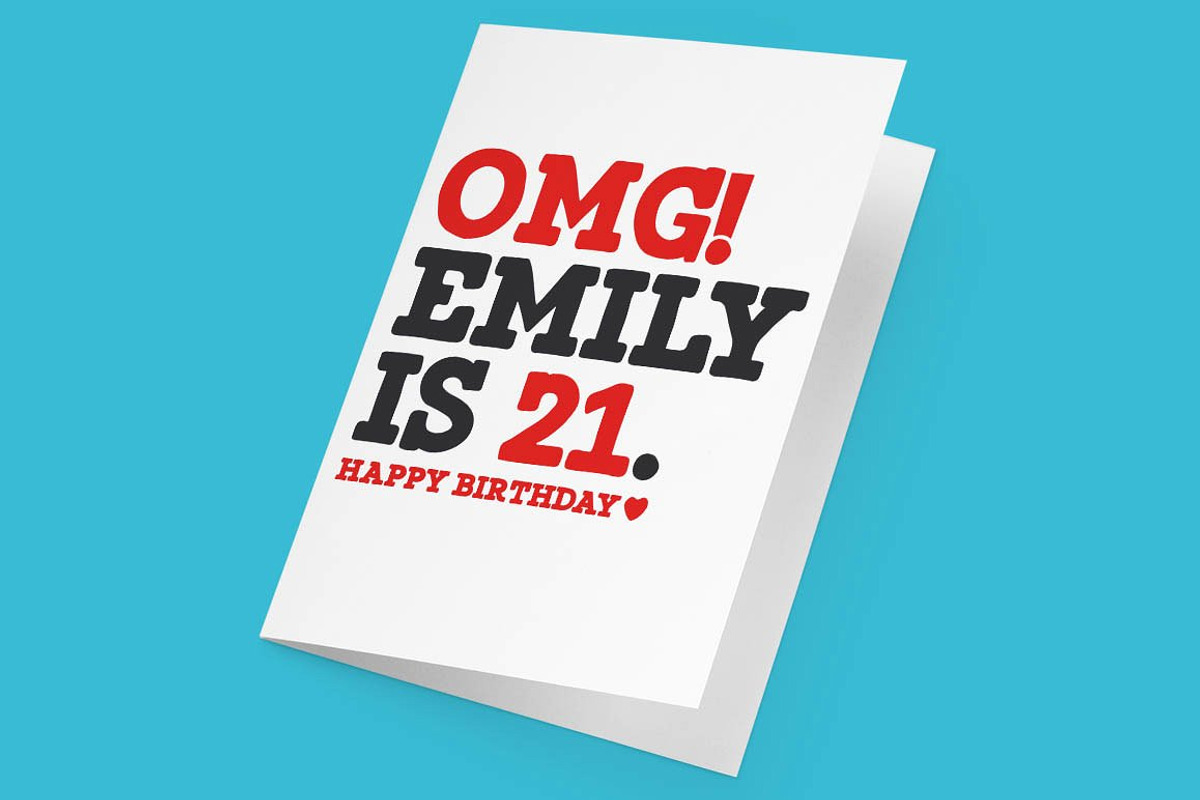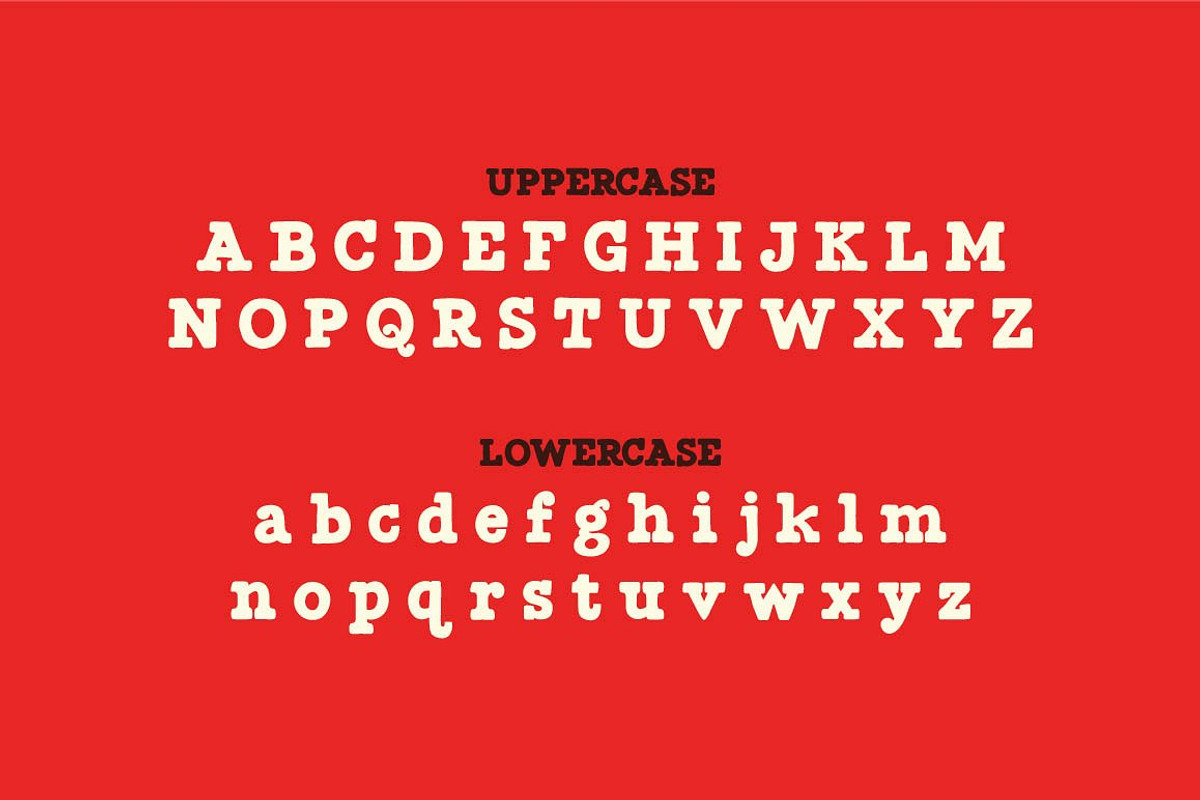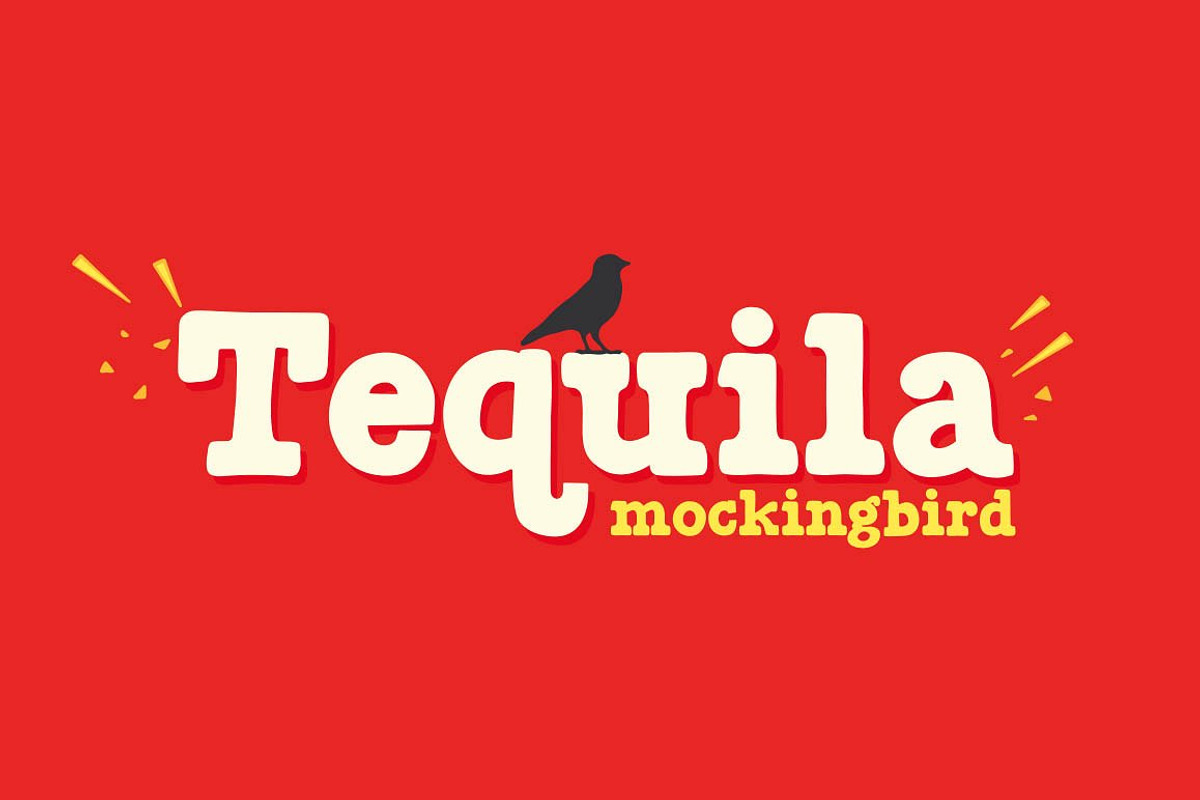
Munky Font
Munky is a big bowl full of slab serif goodness. It’s got a cheeky playful look with large heavy serifs. Its shapes have a few kinks here and there.
It’s great for headlines and titles but is also very legible in sentence cases.
It works great for branding and packaging, books, invitations and anything where you want a laid-back vibe—without being too childish.
Munky Slab Serif Font